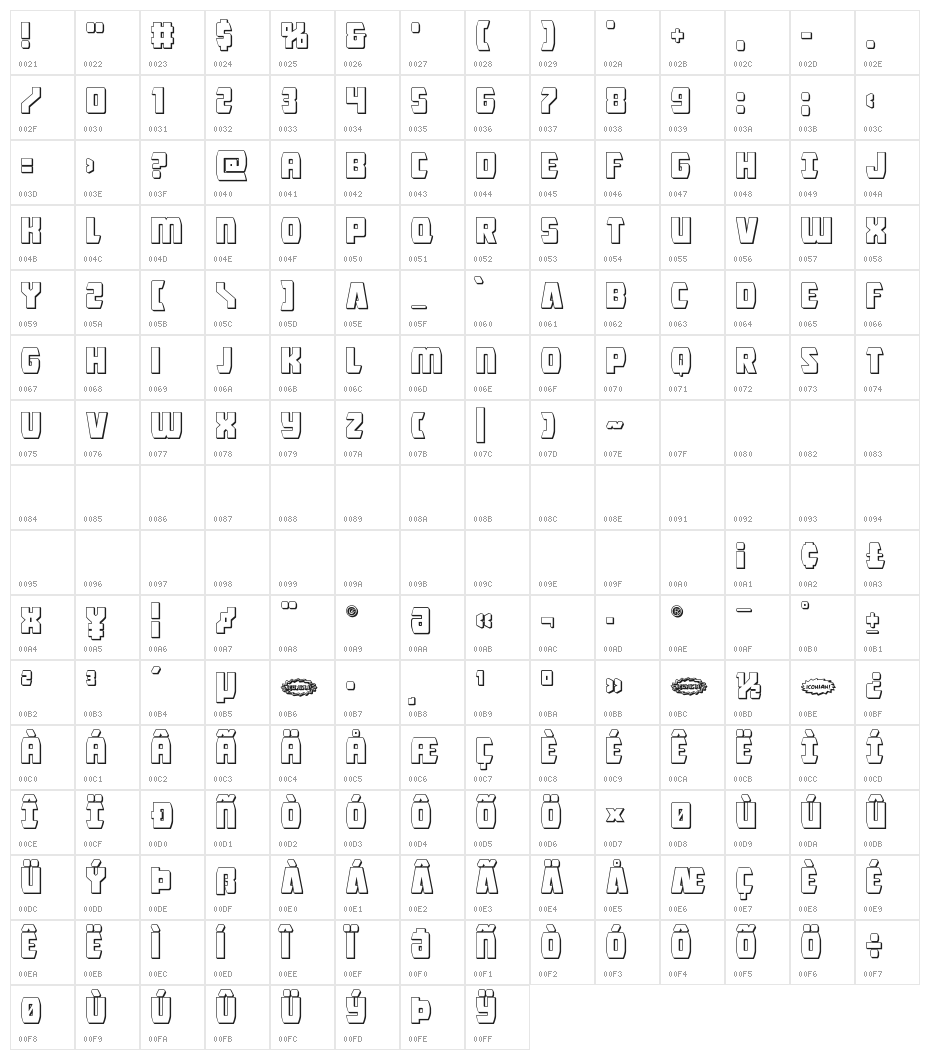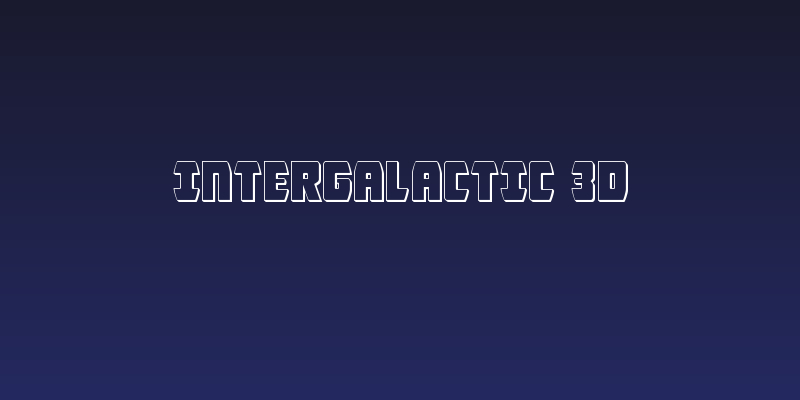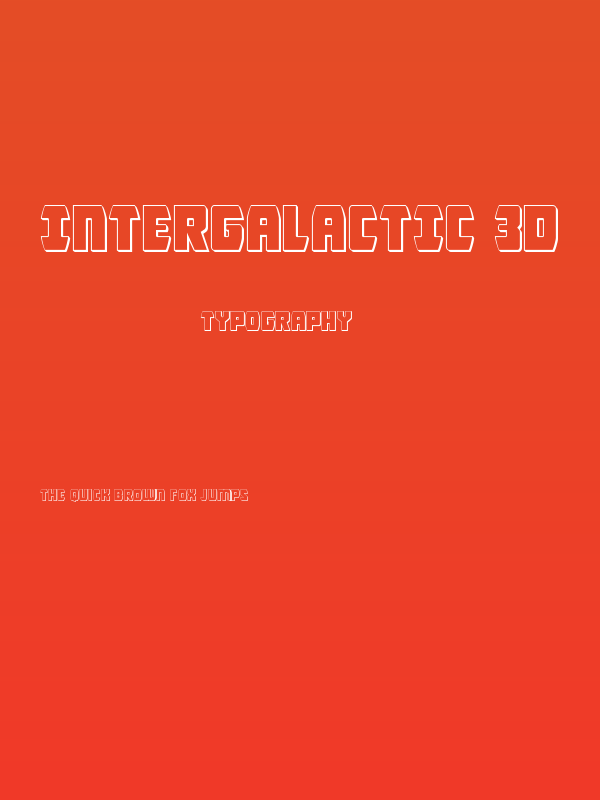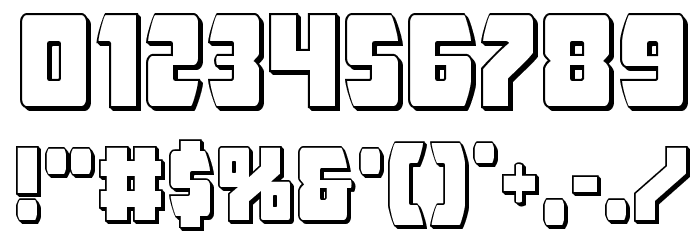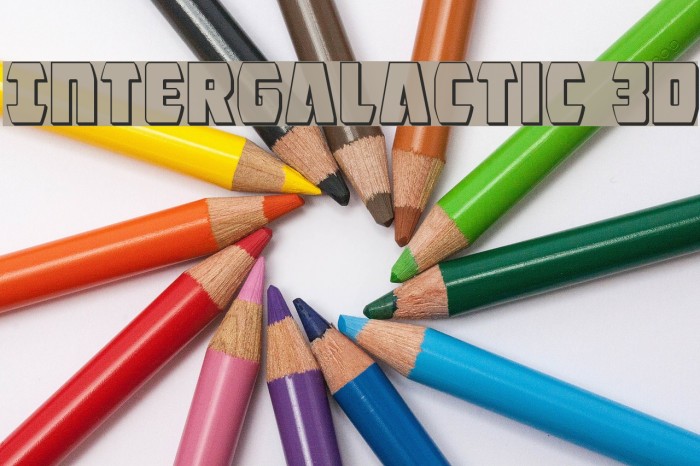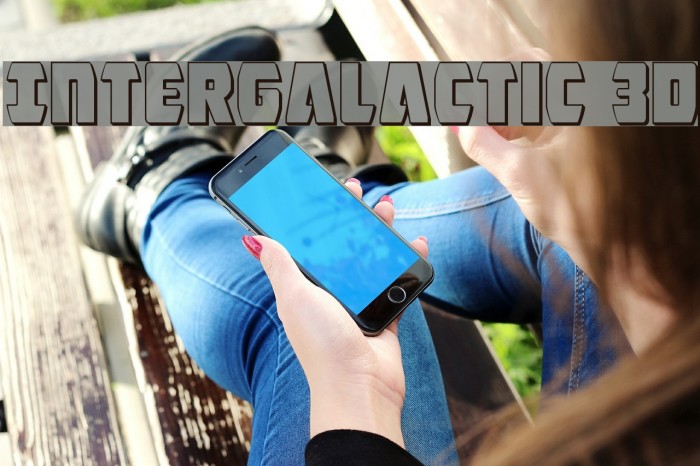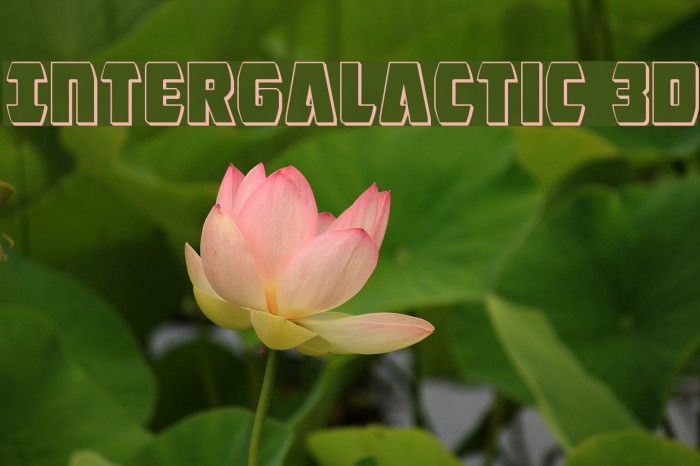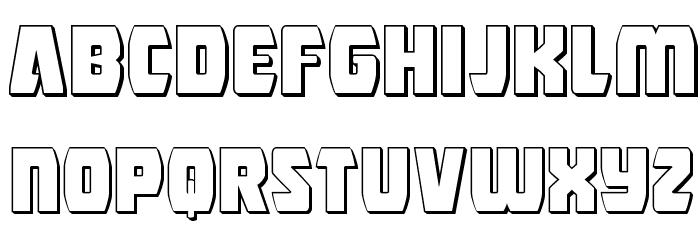
Intergalactic 3D Font
Intergalactic 3D Description
This font features a bold, three-dimensional design with a futuristic and geometric aesthetic. The characters are outlined with a thick border, giving them a strong presence and a sense of depth. The style is reminiscent of retro sci-fi themes, with a blocky and angular appearance that suggests a sense of movement and dynamism. The uppercase and lowercase letters are consistent in style, maintaining the bold outline and geometric form. Numbers and special characters follow the same design principles, ensuring uniformity across all glyphs. This font is ideal for projects that require a standout, eye-catching typeface with a modern twist.
| Overall Style | Futuristic, Retro |
| Proposed Projects | Ideal for sci-fi themed posters, video game titles, futuristic branding, and any project needing a bold, standout typeface. |